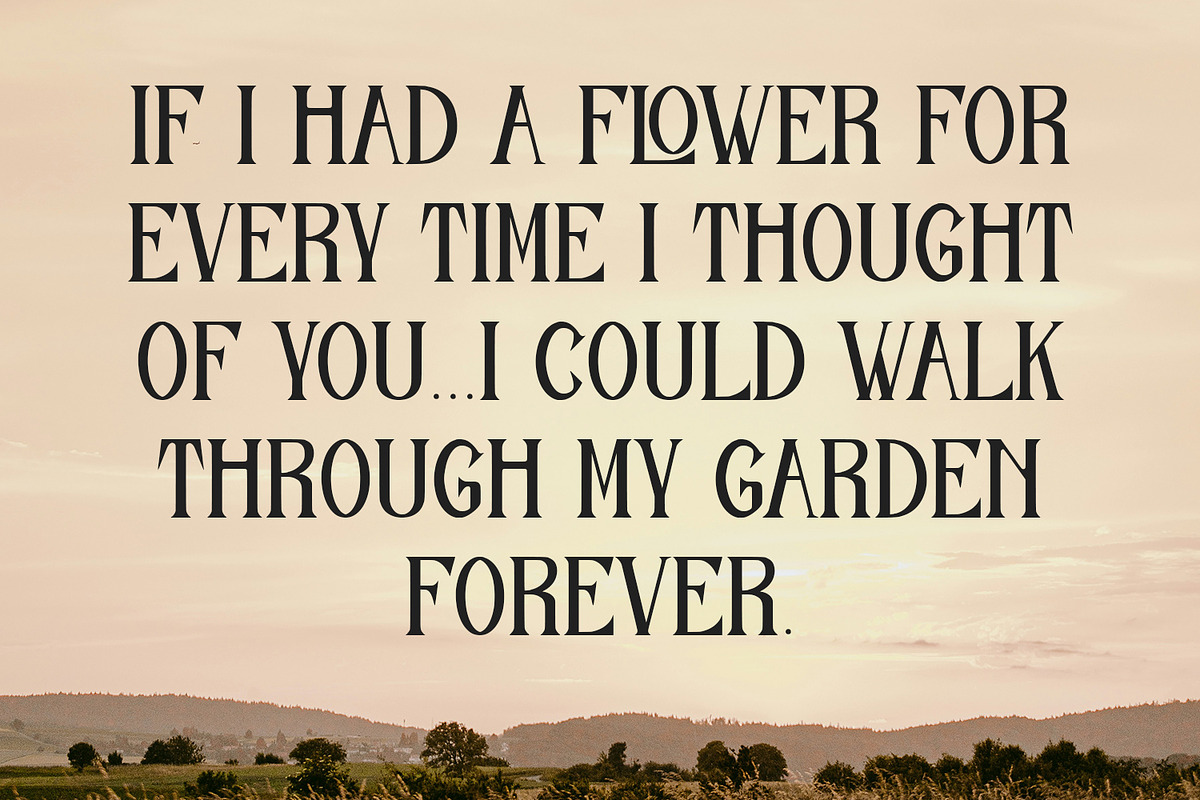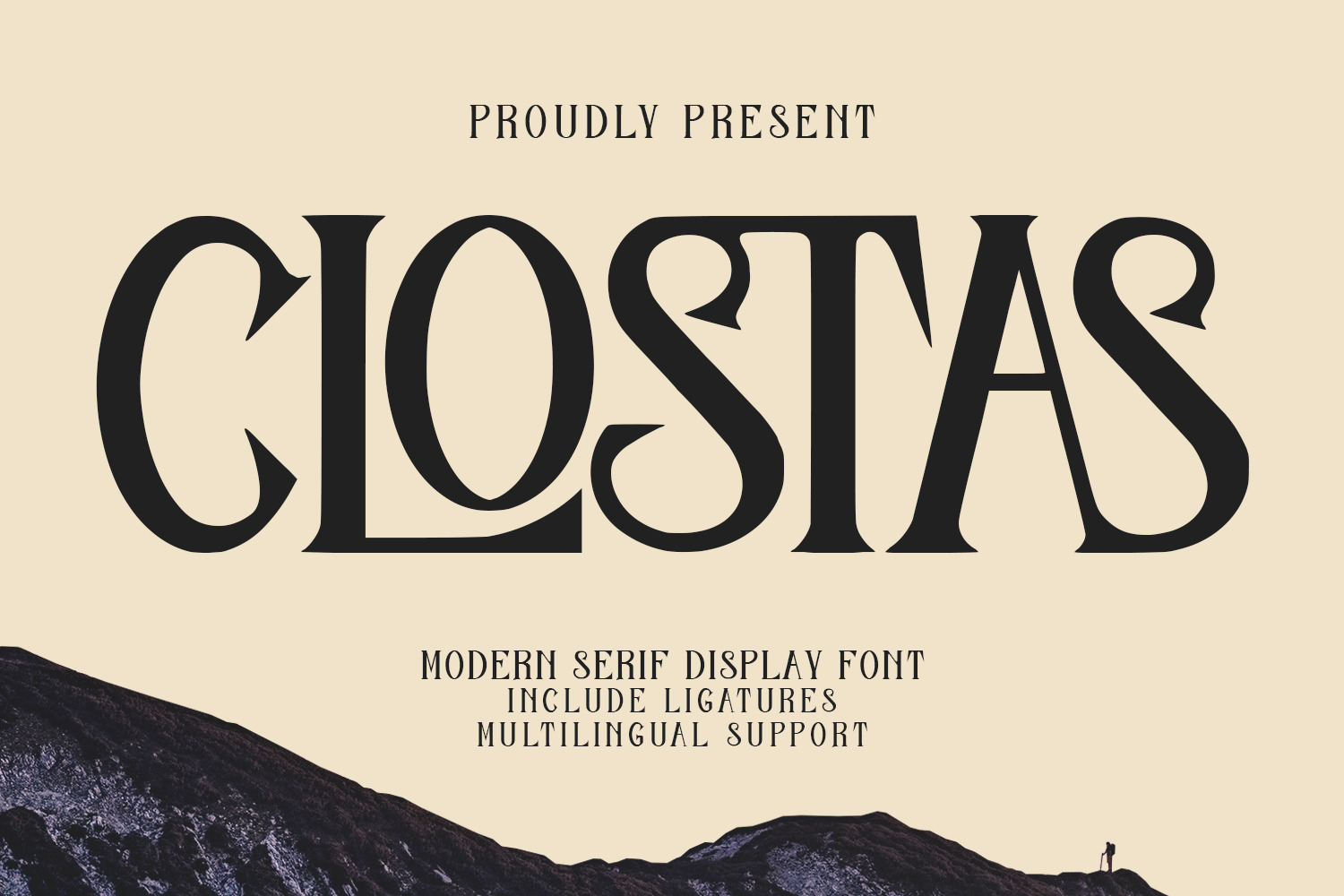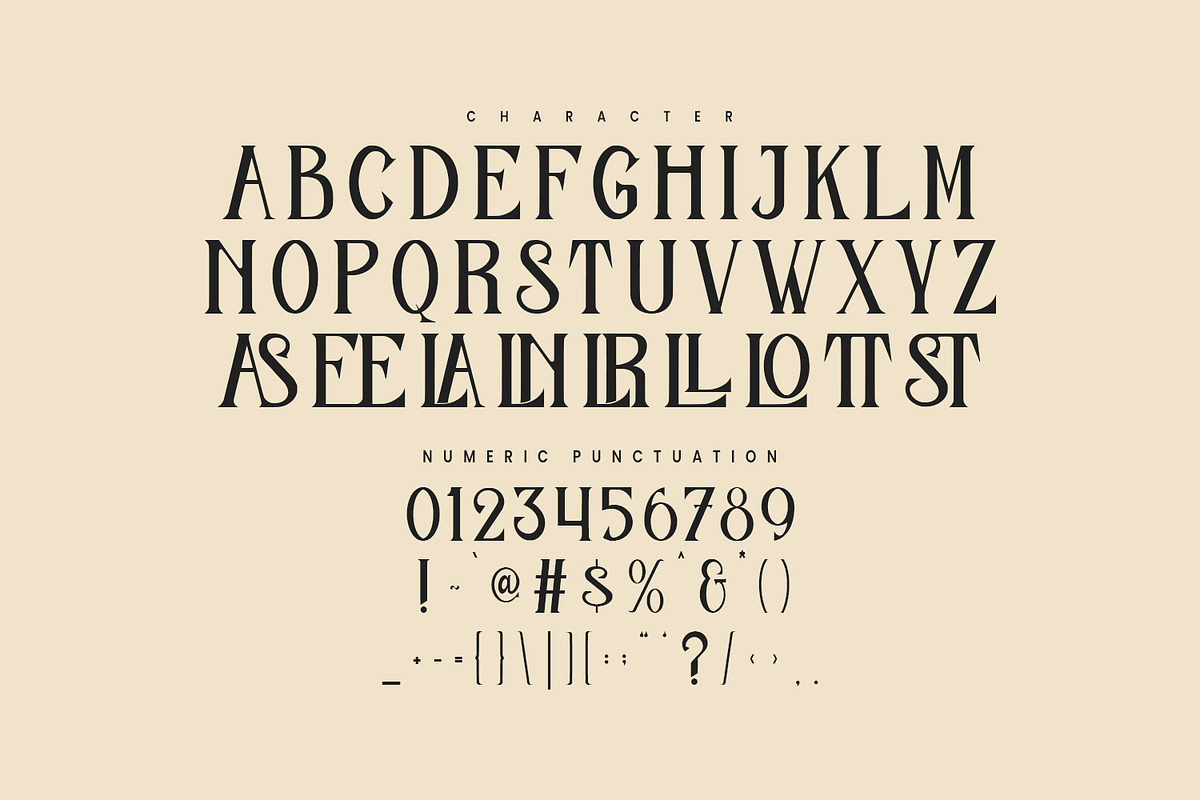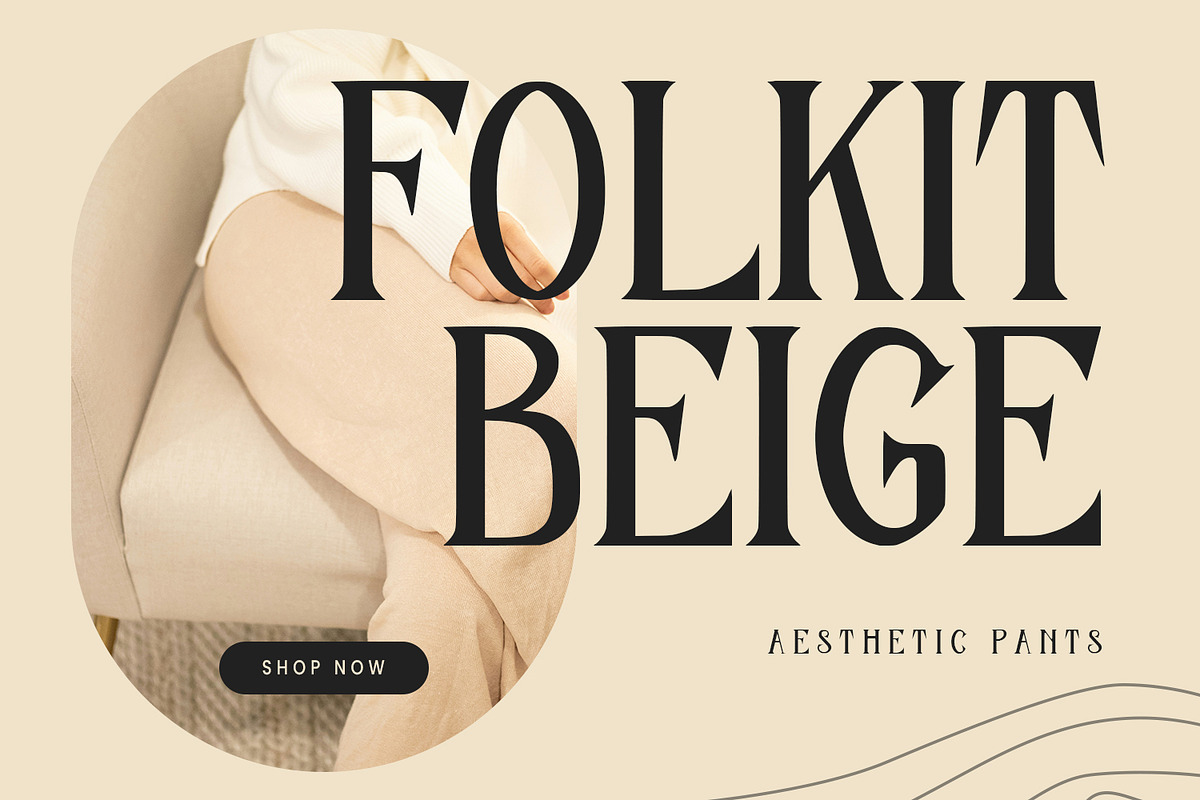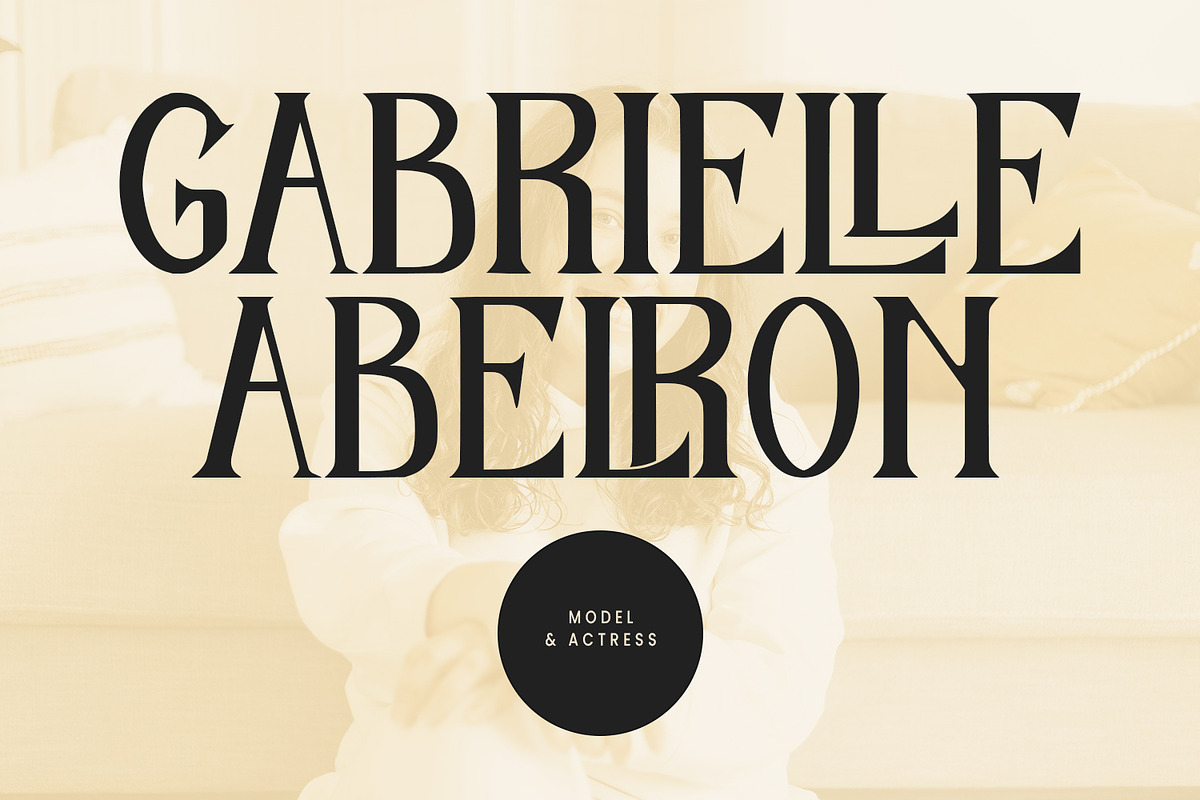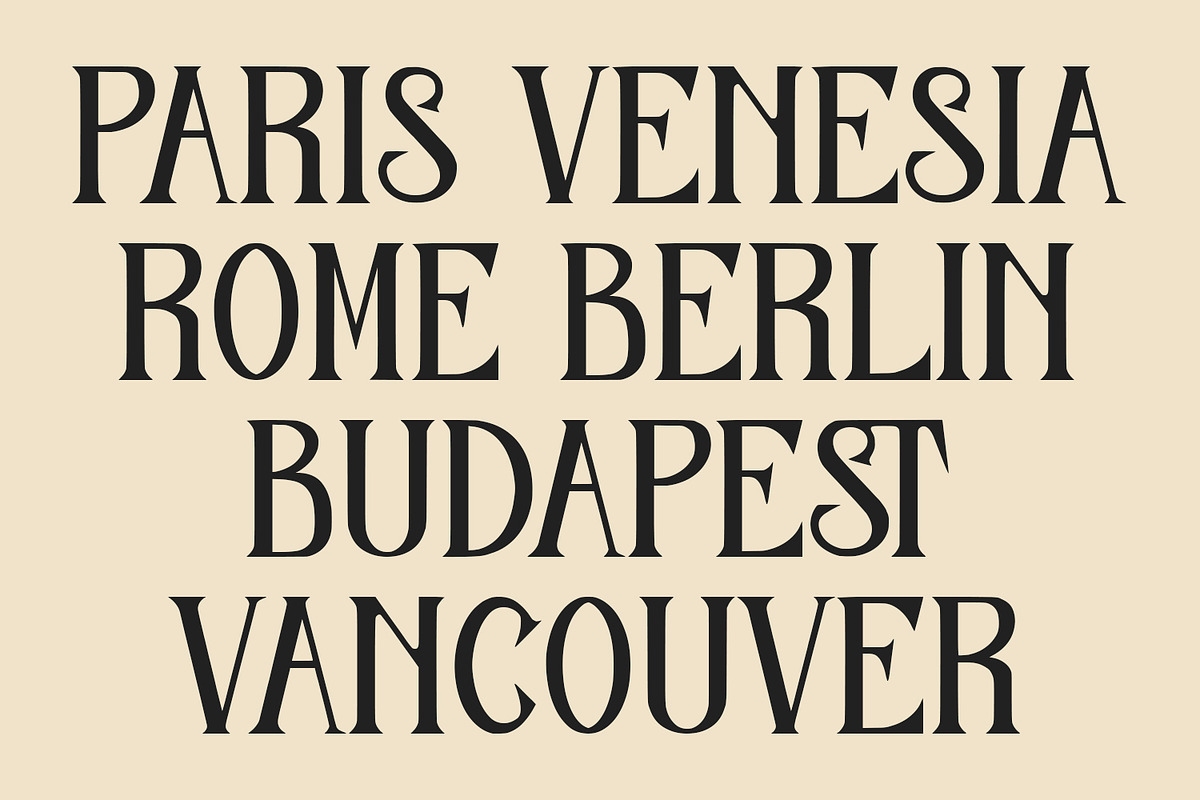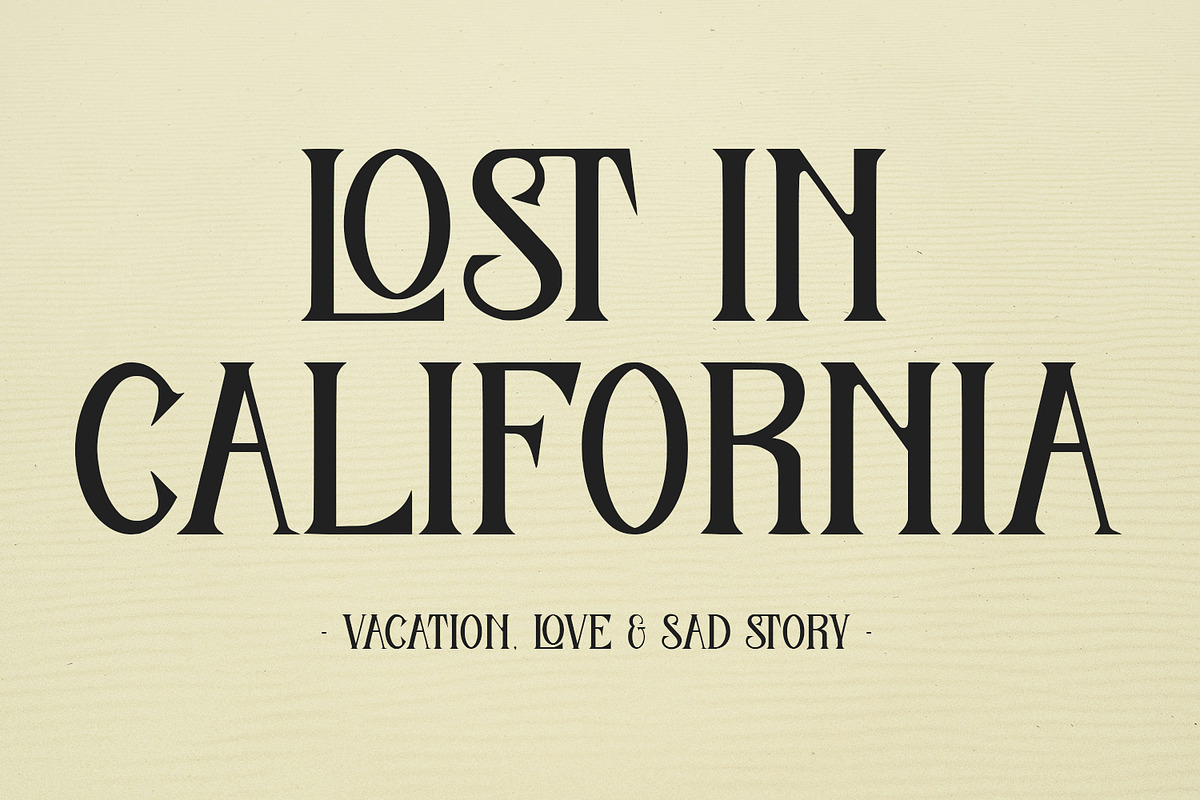
Clostas Modern Serif Display Font
Clostas - Modern Serif Display Font
Clostas is a vintage display handlettering, which is combining modern and classic typography with some awesome ligatures. Yes we back to early 1800s, bring classic touch on this decade.
- Fonts include multilingual support for; ä ö ü Ä Ö Ü ß ¿